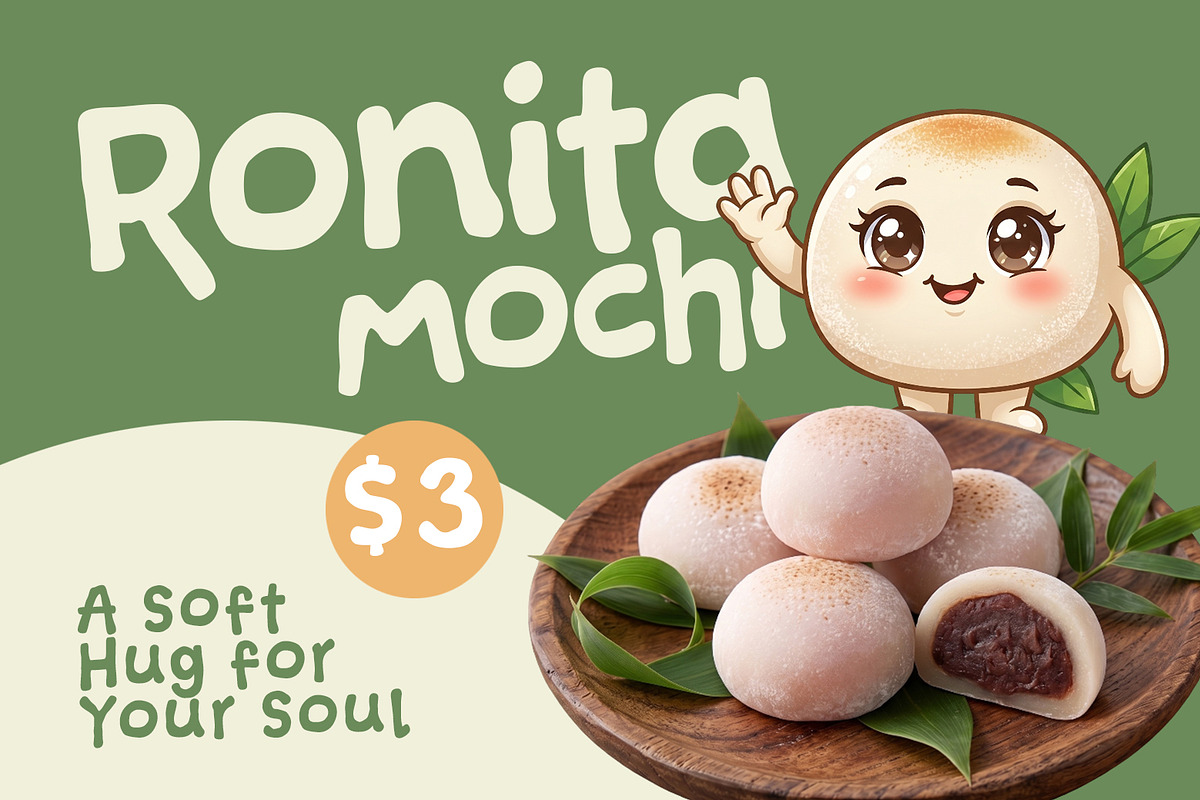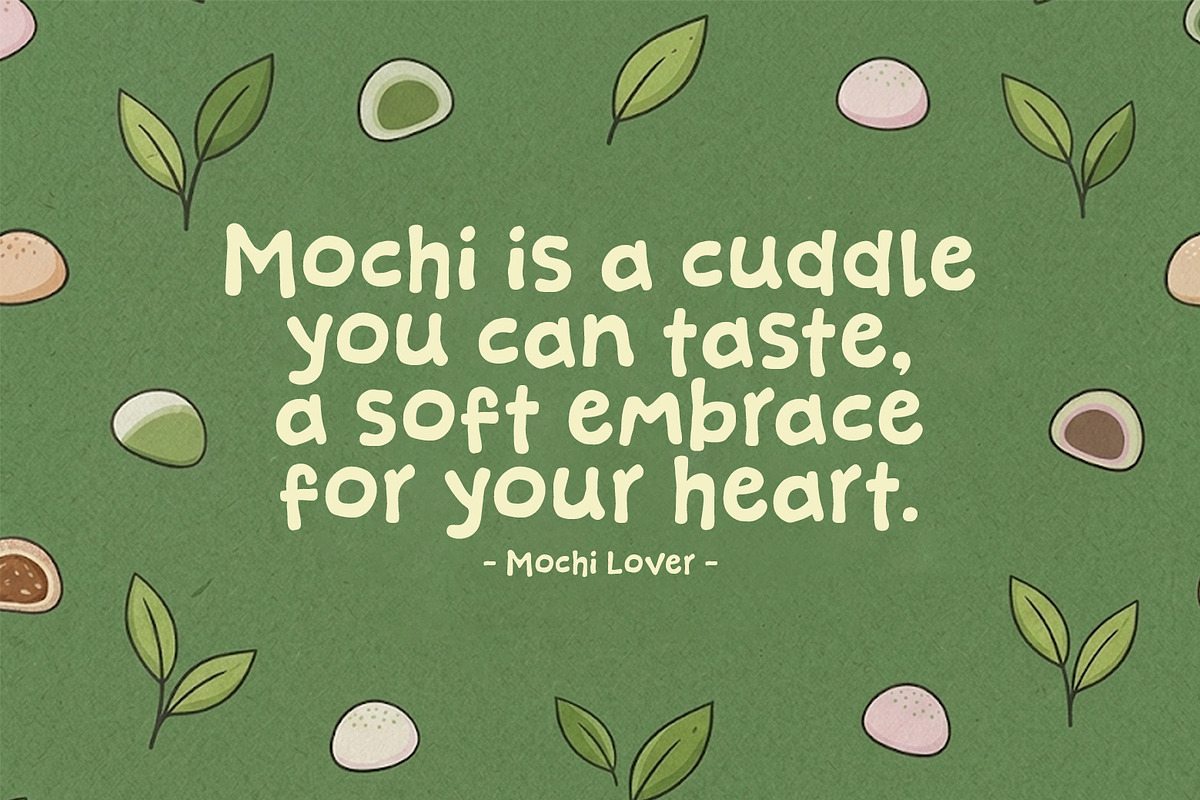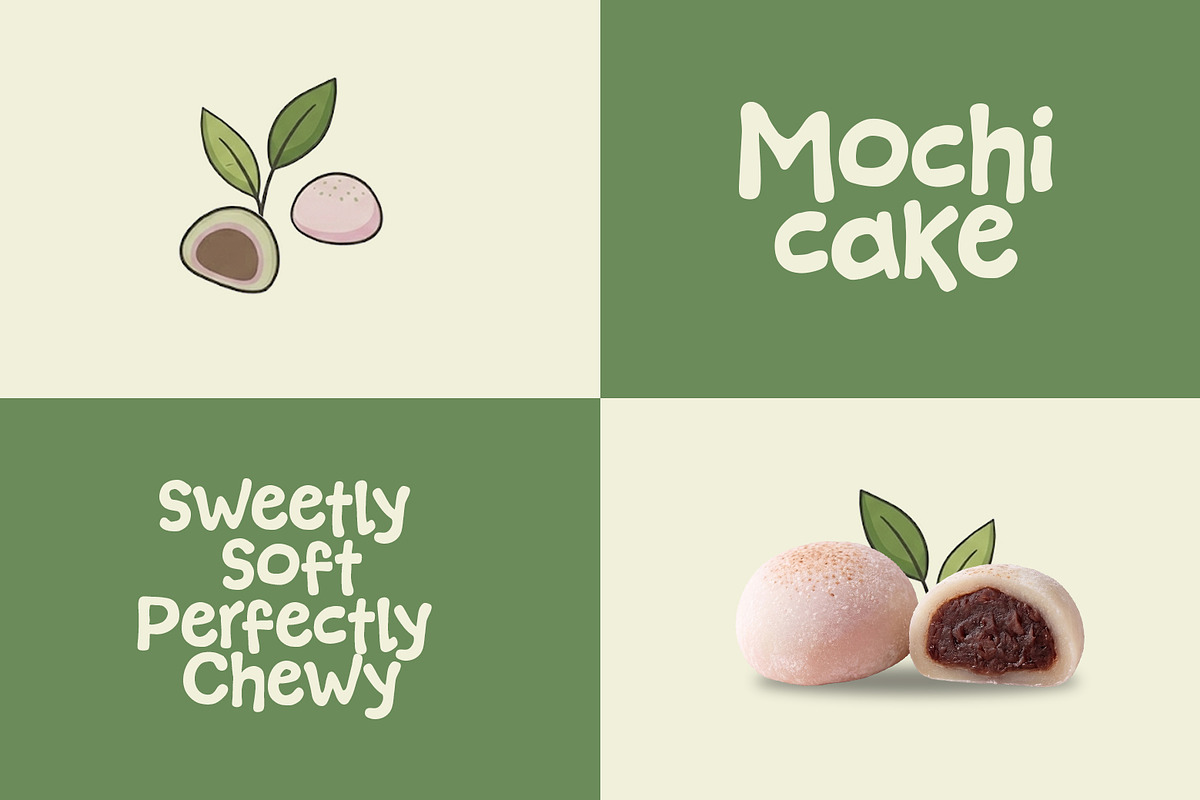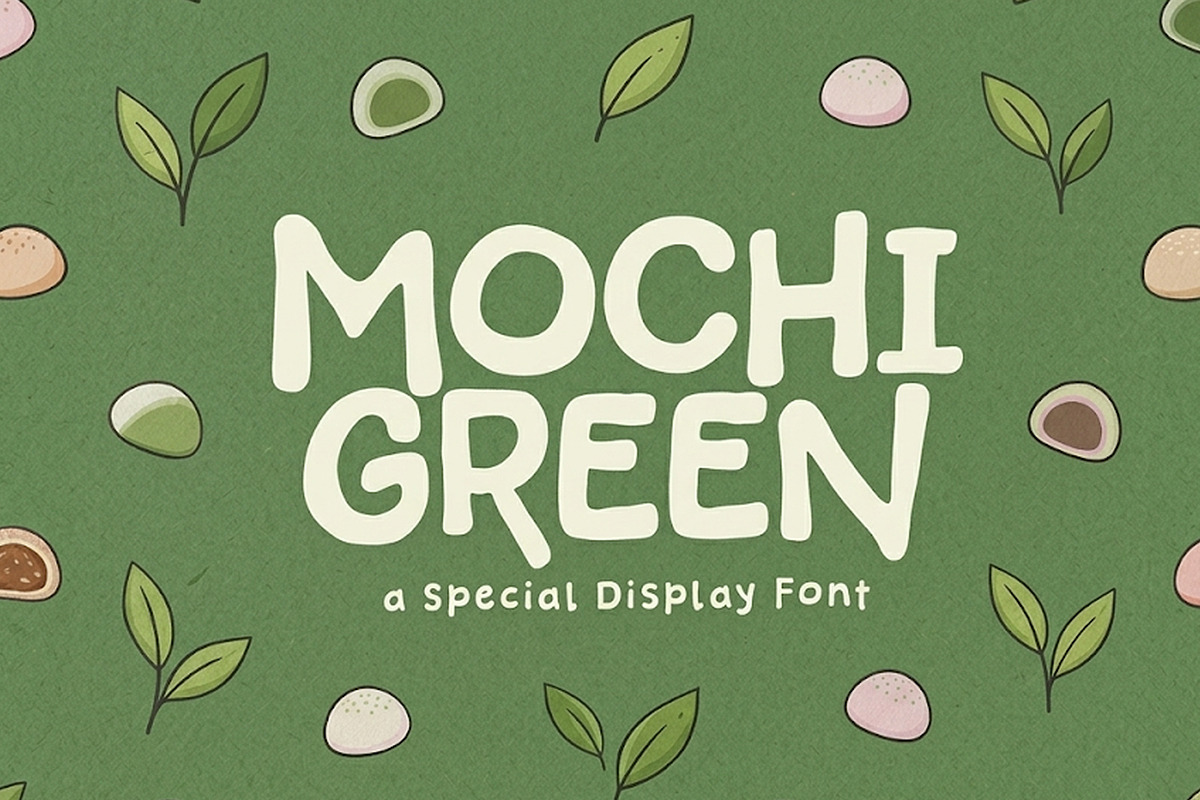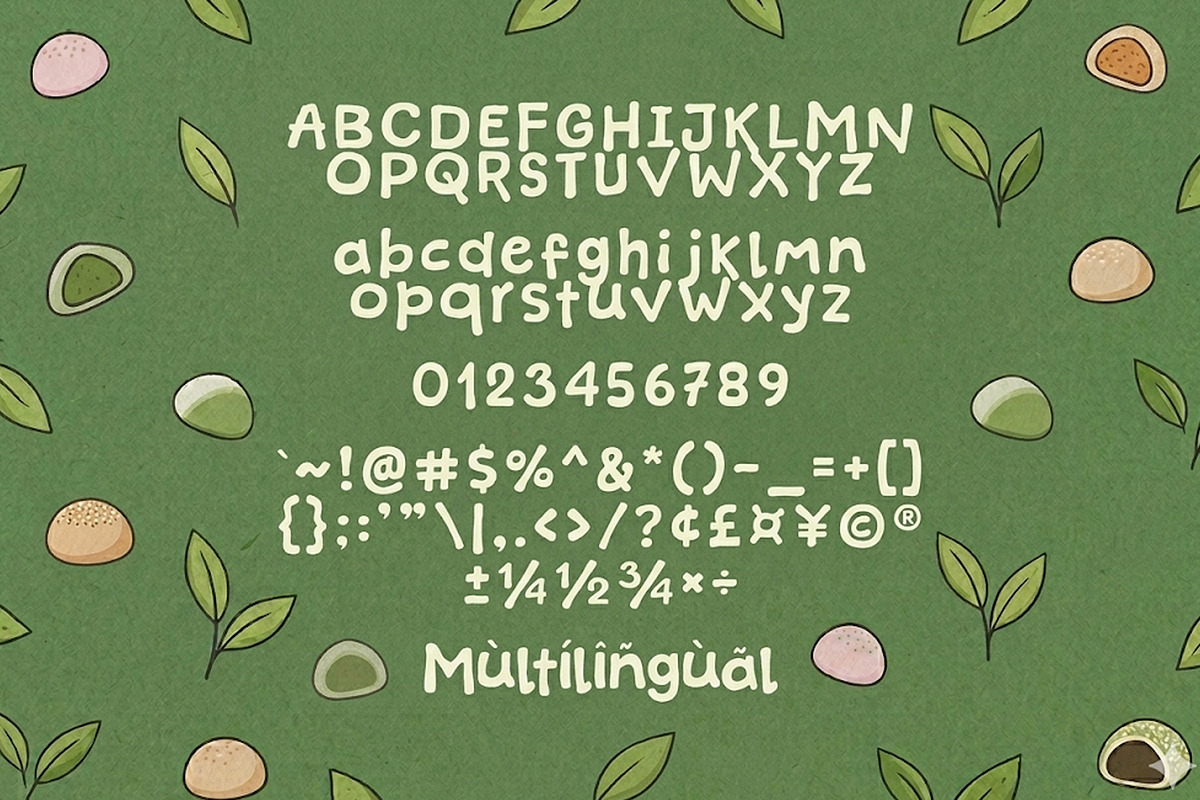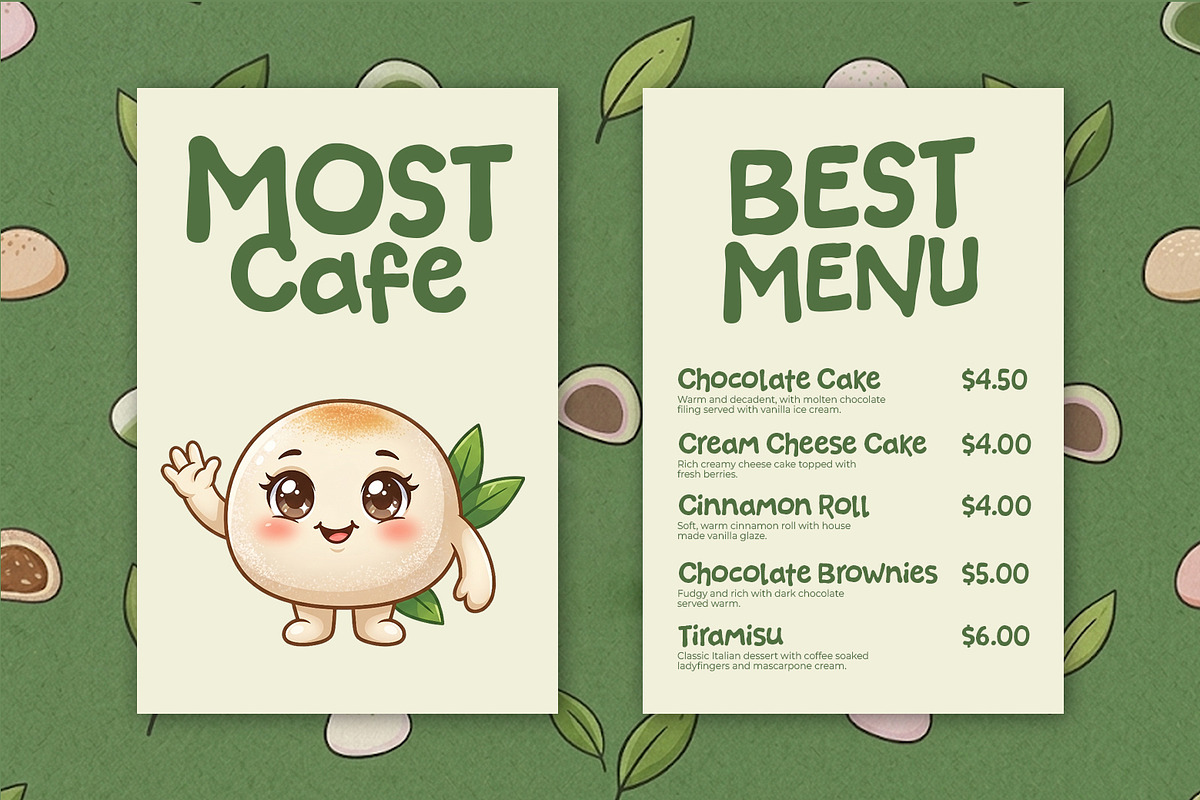
Mochi Green - Cozy & Display Font
Introducing, Mochi Green font a fun display typeface with cheerful theme for your fun project. Mochi Green font suitable for logo, branding, greeting card, poster and any design that you create.
Standart Glyphs
Numberial and Functional